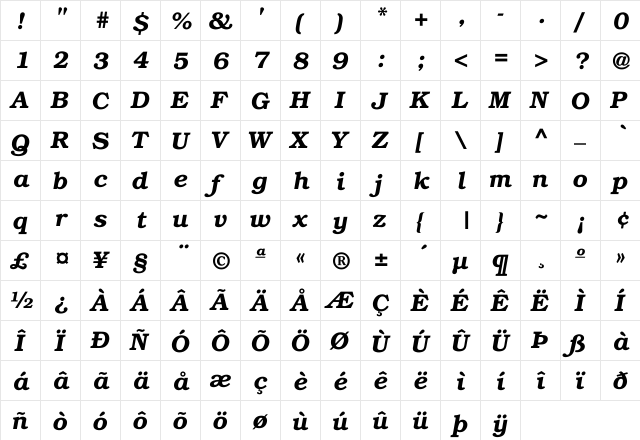
Bookman-DemiItalic Regular
Design Context for Bookman-DemiItalic Typeface
Bookman-DemiItalic is a composed and adaptable typeface that performs quietly and consistently across a wide range of design contexts. The dynamic lean of this cut emphasises speed and emphasis in any layout.
Pro Tip: Use Bookman-DemiItalic for emphasis, pull quotes, and subheadings where its slanted energy can add rhythm to the layout.